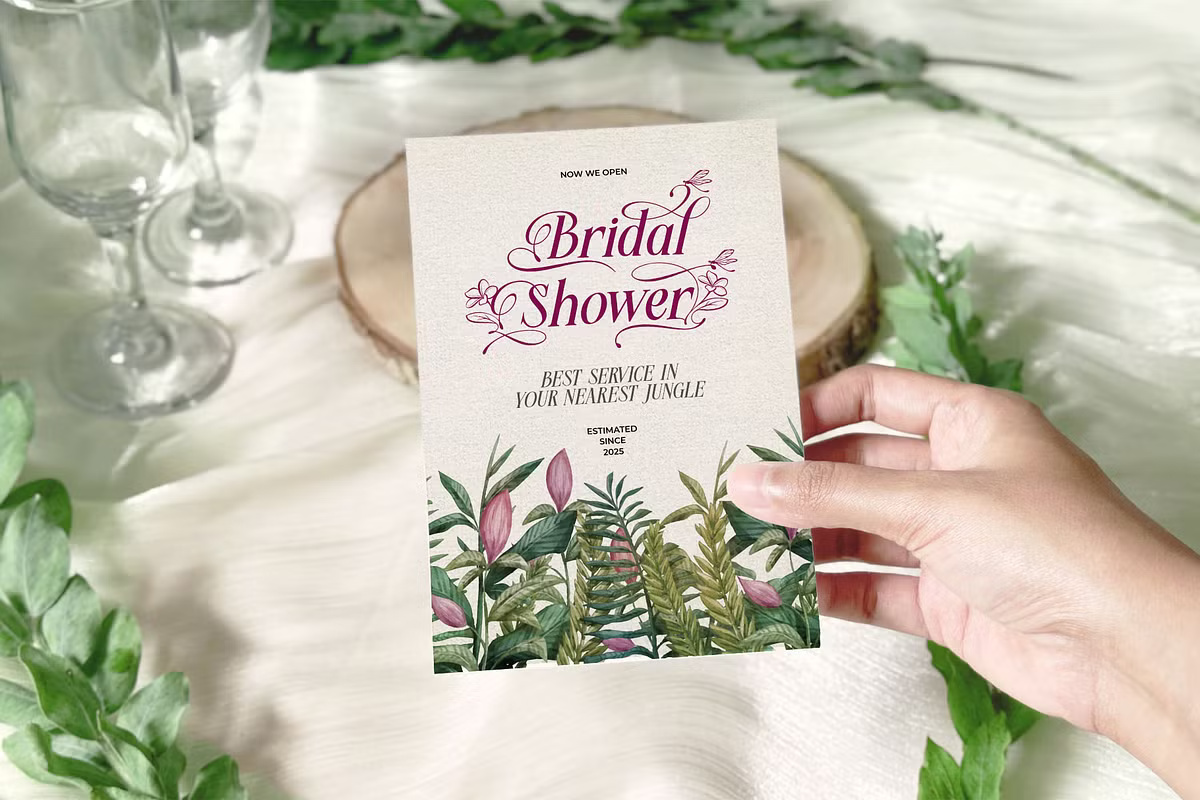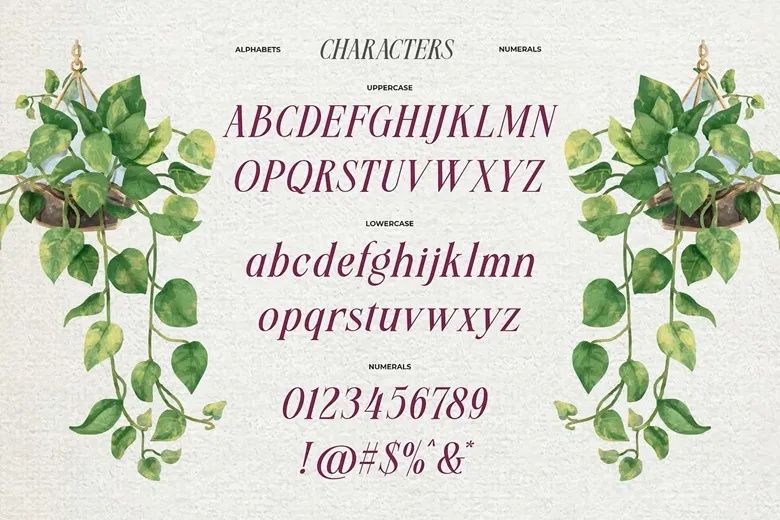
Meillona Font
Meillona is a beautifully crafted serif typeface that blends natural elegance with timeless charm. With its flowing letterforms, classic serif structure, and delicate organic elements, Meillona evokes a sense of romance and refined beauty—making it perfect for designs that seek both grace and individuality.
What truly sets Meillona apart is its rich set of ornamental features, including elegant swashes adorned with floral motifs, foliage accents, and whimsical dragonflies. These details allow for highly personalized, nature-inspired typography that feels both luxurious and heartfelt.